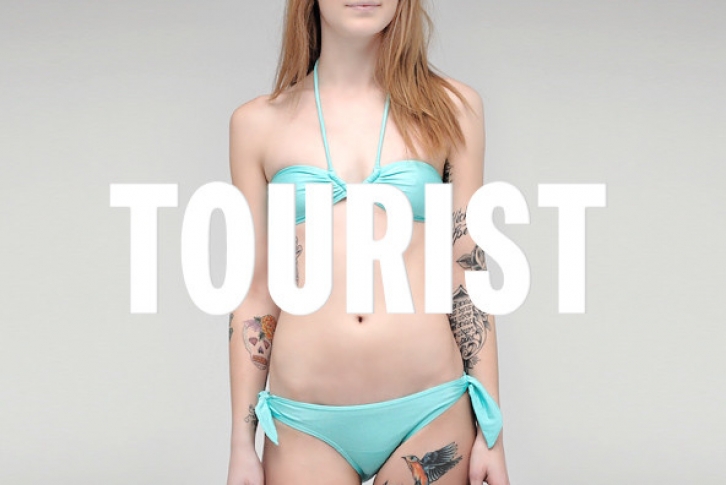
Tourist Gothic is a Lanston Monotype adaptation of Modern Condensed Gothic (a design from the late 1800s.) Rounded alternate caps were designed by Sol Hess in 1928. The alternate version is offered as LTC Tourist Gothic Alt. Tourist Gothic Pro combines both variations and includes a full Central European character set and several other OpenType features.
Pro features are as follows:
Localized forms
Numeral Features: Numerator, Denominator, Superiors, Inferiors, Fractions, Tabular numbers, Proportional Numbers Case sensitive forms and capital spacing Stylistic Alternates and Stylistic Sets: Stylistic sets have been designed to use all alternate characters together (set 1), or to apply alternates to one letter (series=all accented variations of that letter) only (sets 2-16).
The stylistic replace the following characters with alternate forms as follows:
1 A, C, E, F, G, J, K, M, N, R, S, U, W, X, and Y (and diacritic variants).
2 A series
3 E series
4 E series replaced with second alternate form, will override the alternate E
in ss01 when used together.
5 U series
6 Y series
7 C series
8 F
9 G series
10 J series
11 K series
12 M
13 N series
14 R series
15 S series
16 W series
Digitized by Paul Hunt.